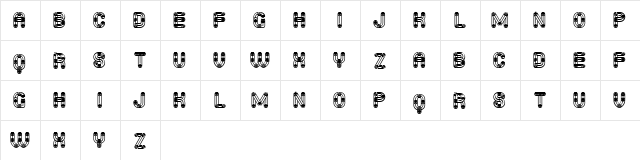
Furious Ride Linear Regular
Design Context for Furious Ride Linear Typeface
Furious Ride Linear is a composed and adaptable typeface that performs quietly and consistently across a wide range of design contexts.
Pro Tip: Use Furious Ride Linear in both headline and body roles to test its range before committing to a single application.